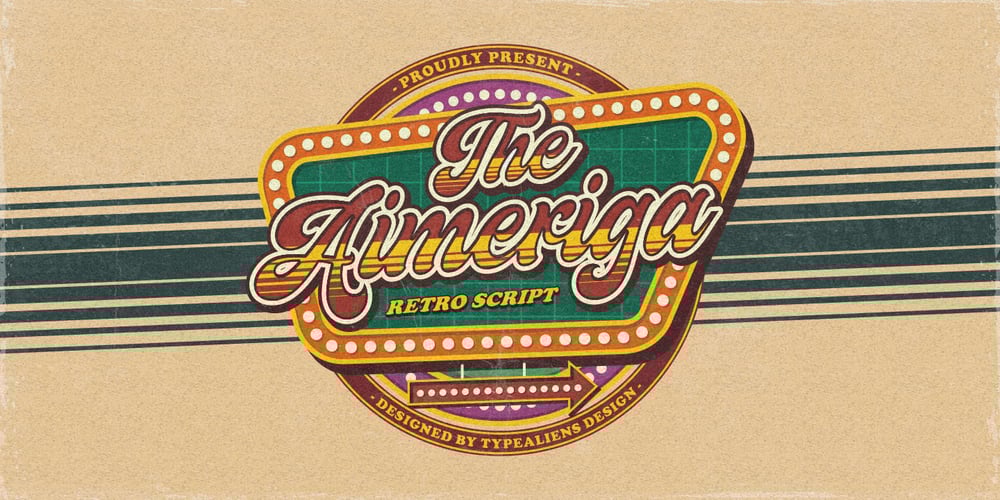
Aimeriga
Aimeriga font
Aimeriga Font Family was designed by Ilham Wahyu and published by Ilhamtaro. Aimeriga contains 1 styles and family package options. AIMERIGA is a vintage script font with fat features on its body, a font that is suitable for branding food, fashion or any brand that requires a vintage style. In addition to vintage, this font is also relaxed and casual and easy to process in layouts according to design needs.To enable the OpenType Stylistic alternates, you need a program that supports OpenType features such as Adobe Illustrator CS, Adobe Indesign & CorelDraw X6-X7. Guides to access all alternates glyphs : http://adobe.ly/1m1fn4YCheers!